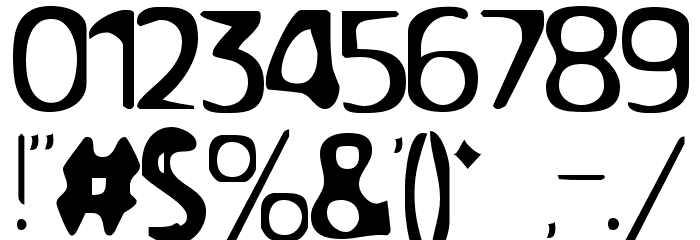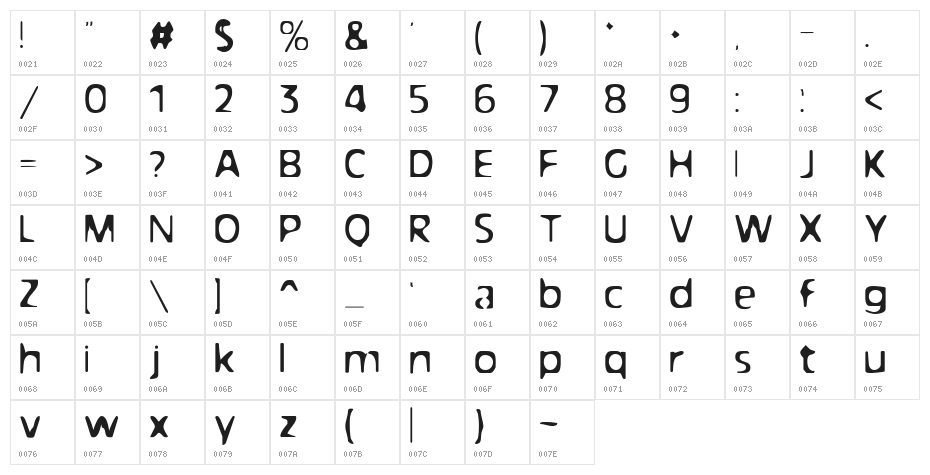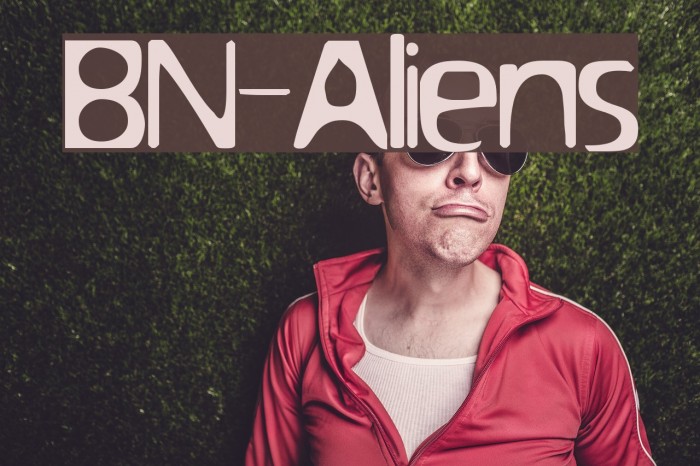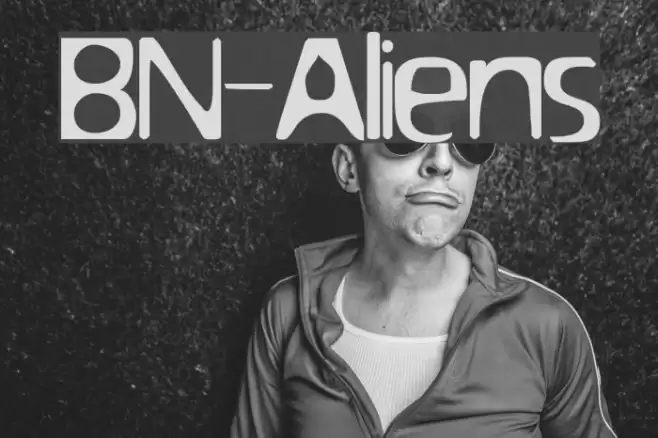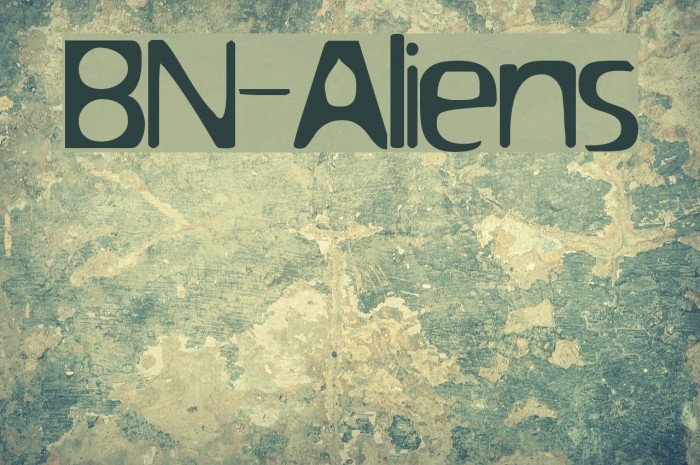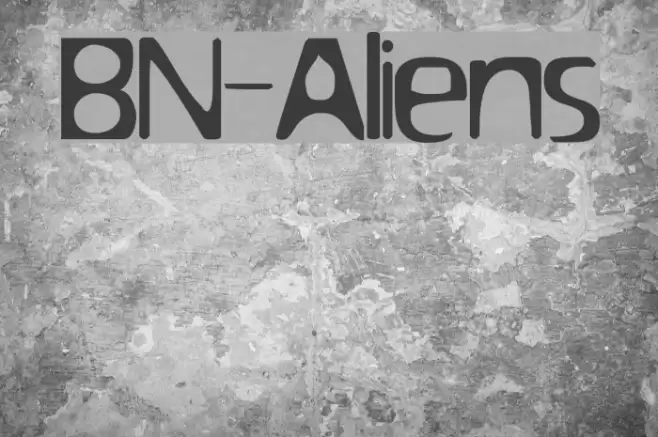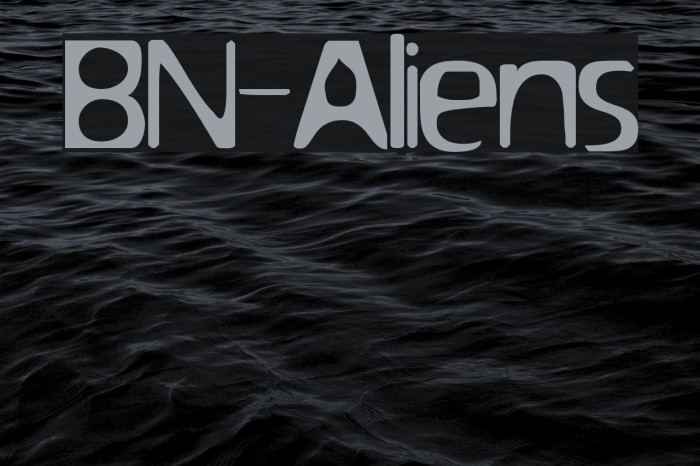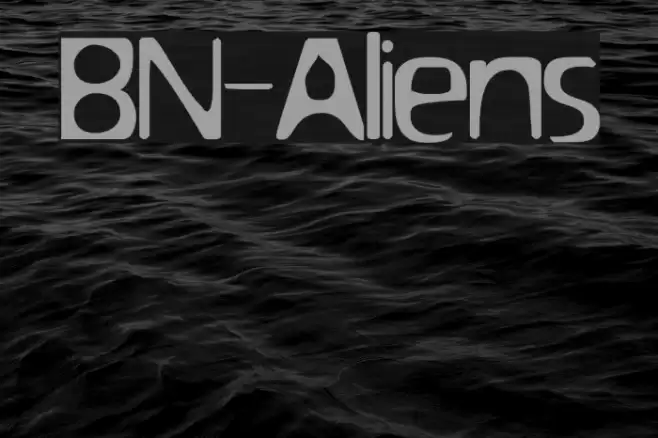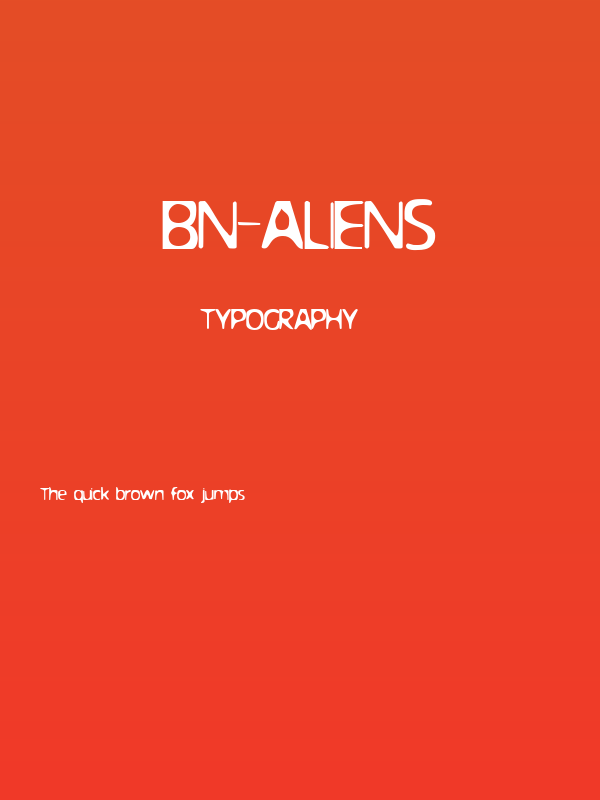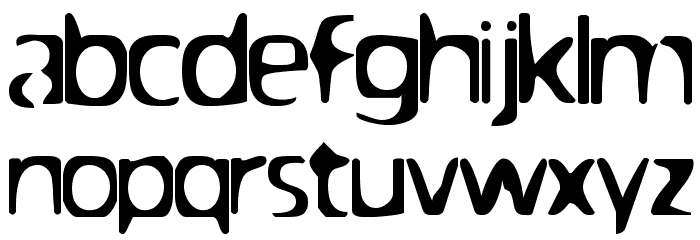
BN-Aliens Font
BN-Aliens Description
This font features a unique and futuristic design, characterized by its bold and rounded letterforms. The characters have a playful and slightly alien-like appearance, with smooth curves and a consistent stroke width. The uppercase and lowercase letters maintain a cohesive style, while the numerals and special characters complement the overall aesthetic. The font's distinctiveness makes it stand out, offering a modern and unconventional look.
| Overall Style | Futuristic, Playful |
| Proposed Projects | Ideal for sci-fi themed projects, video game titles, movie posters, and creative branding. |